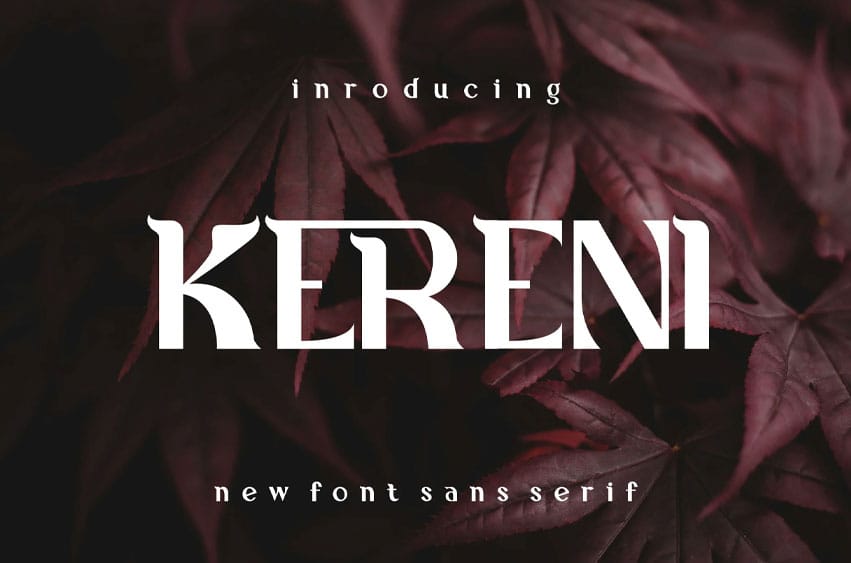
Kereni Font displays an Elegant & Font authentic logo and display. It is suitable for flyers, posters, novels, letterheads, or any design requirements you want to be awesome.